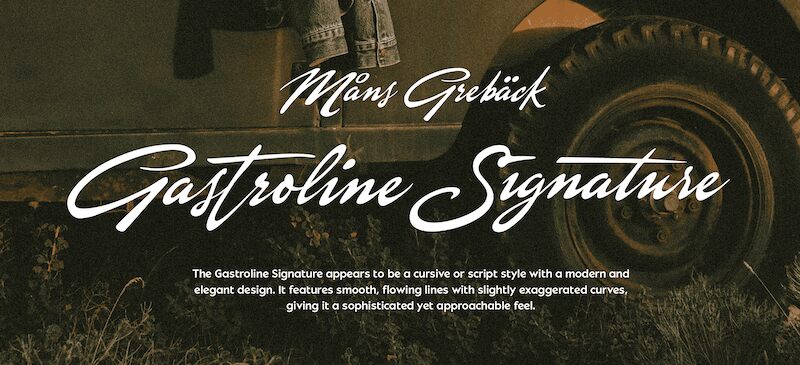
Gastroline Signature font by Måns Grebäck combines an elegant, sophisticated style with flowing movements typical of a modern signature. This free handwritten font is expressive and able to grab attention through its gentle character, inspired by calligraphy and curvilinear strokes.
Use Gastroline Signature to finally sign off that typography project you’ve been working on or prepare logos, brands titles, book covers, or ad certificates. A good option for anywhere elsewhere where you’d like to convey friendship and love.
Gastroline Signature is a handwritten calligraphy-style typeface. It features a dynamic forward lean that imparts life and movement to your graphics.